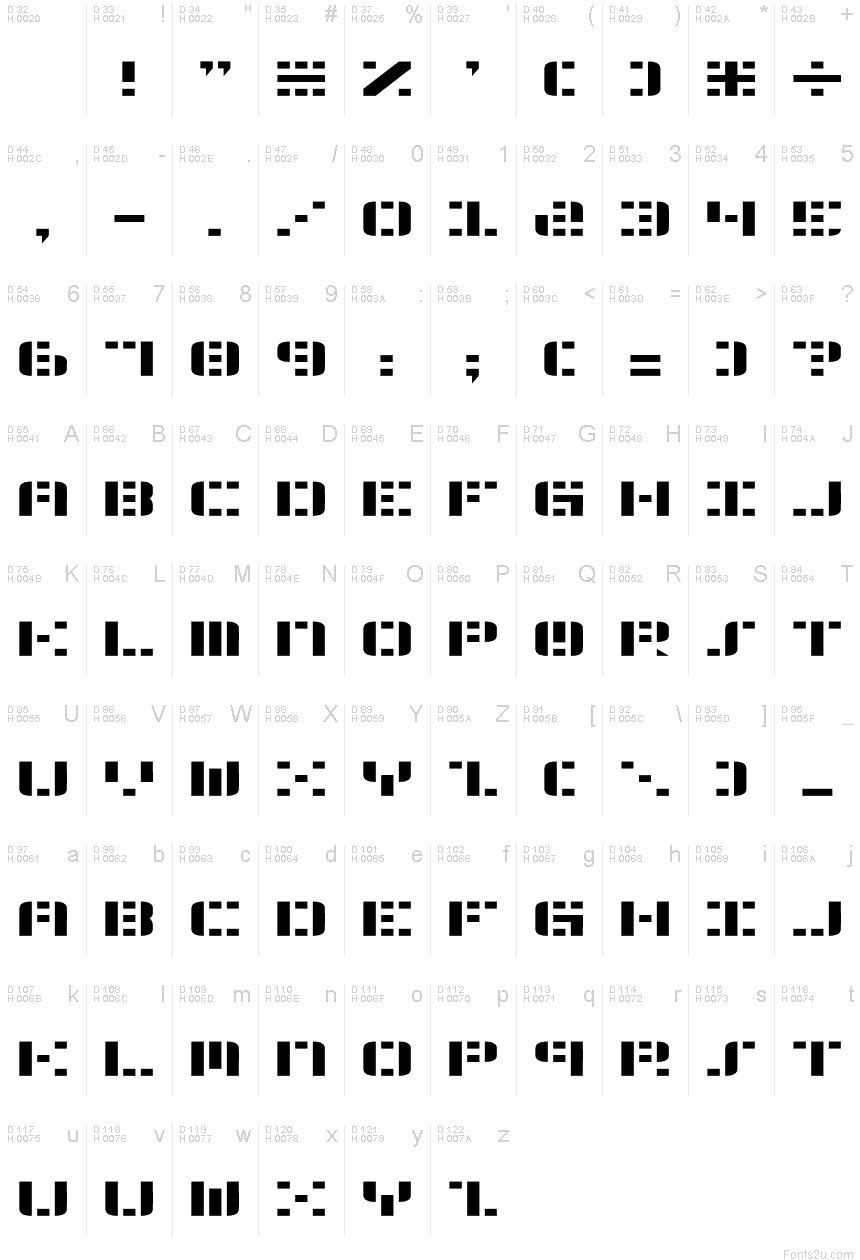
Aldo's Moon
Aldo's Moon font by Iconian Fonts is a free digital display typeface that looks like it was carved from solid blocks of neon-lit steel. Each letter is built from tall, chunky rectangles with precise cutouts and softened corners, creating a tight, almost monospaced rhythm that feels both mechanical and futuristic. The result is bold, legible word shapes that read instantly even at a distance, with just enough pixel‑like texture to hint at retro arcade screens.
Using Aldo's Moon, headlines snap into place with a strong vertical pulse that suits sci‑fi posters, game titles, esports branding, tech conference graphics, YouTube overlays, and electronic album covers. This free font shines at large sizes where its geometric grids and negative-space slices can really breathe. Pair it with a clean, lightweight sans-serif for body text to keep layouts readable while Aldo's Moon handles the high-impact moments.